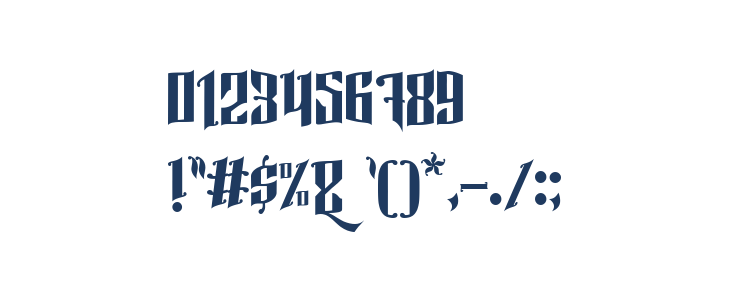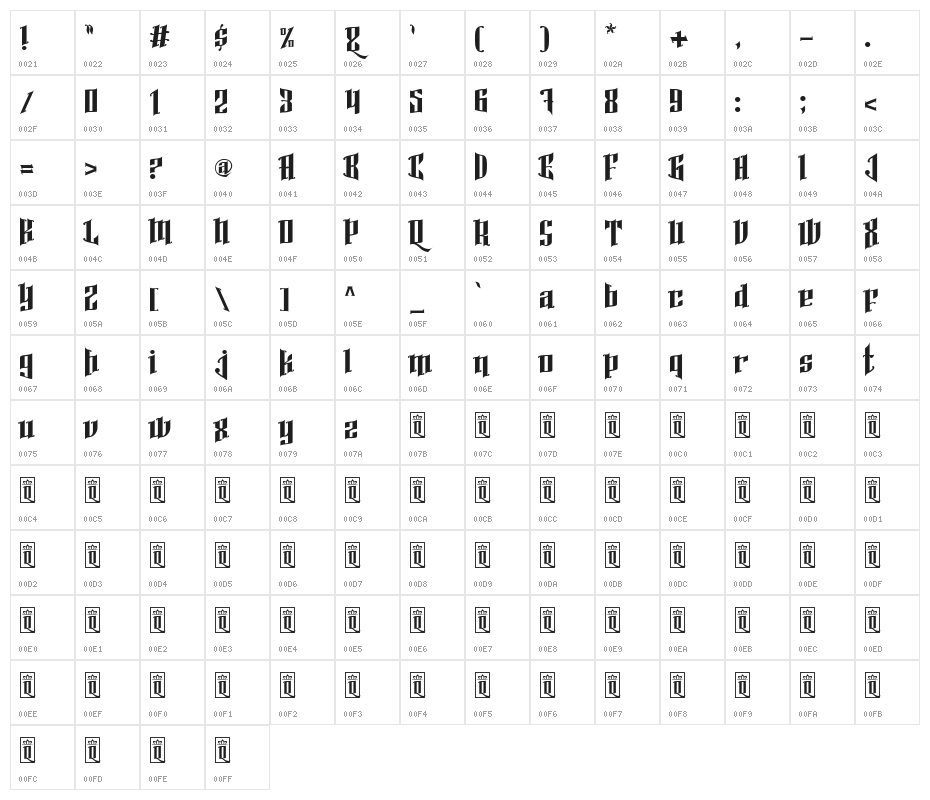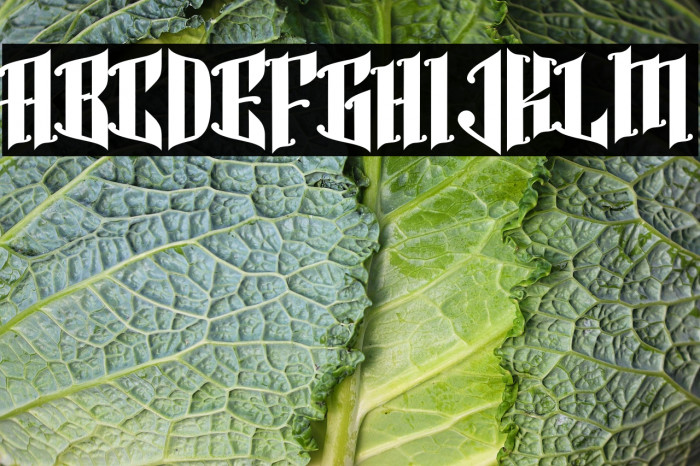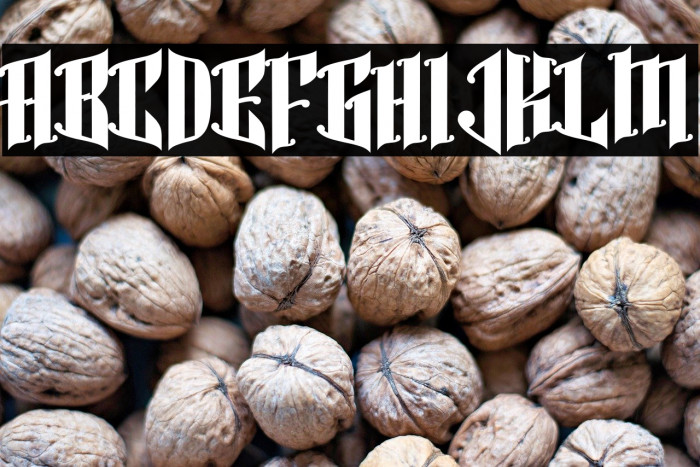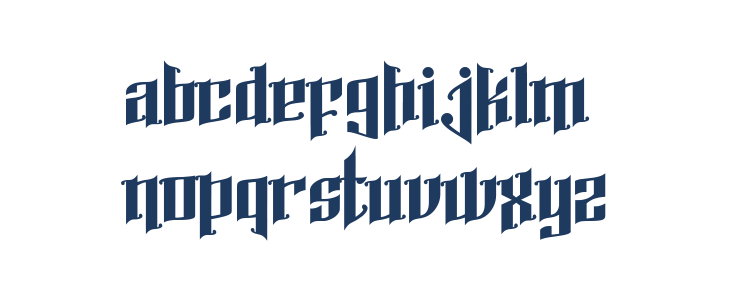
Queenzy Font
Queenzy Description
This font features a bold and dramatic blackletter style, characterized by its sharp, angular lines and intricate detailing. The uppercase letters are tall and imposing, with a gothic flair that is both traditional and striking. The lowercase letters maintain the same level of detail, offering a cohesive look throughout. Numbers and special characters are designed to match the ornate style, making this font suitable for creating a sense of historical or medieval ambiance. The overall appearance is highly decorative, with a strong emphasis on vertical strokes and minimal curves, giving it a distinctive, authoritative presence.
| Overall Style | Vintage |
| Use Case | Logos, Headlines, Decorative purposes |
| Proposed Projects | Ideal for projects requiring a historical or medieval theme, such as event posters, book covers, or branding for themed venues. |